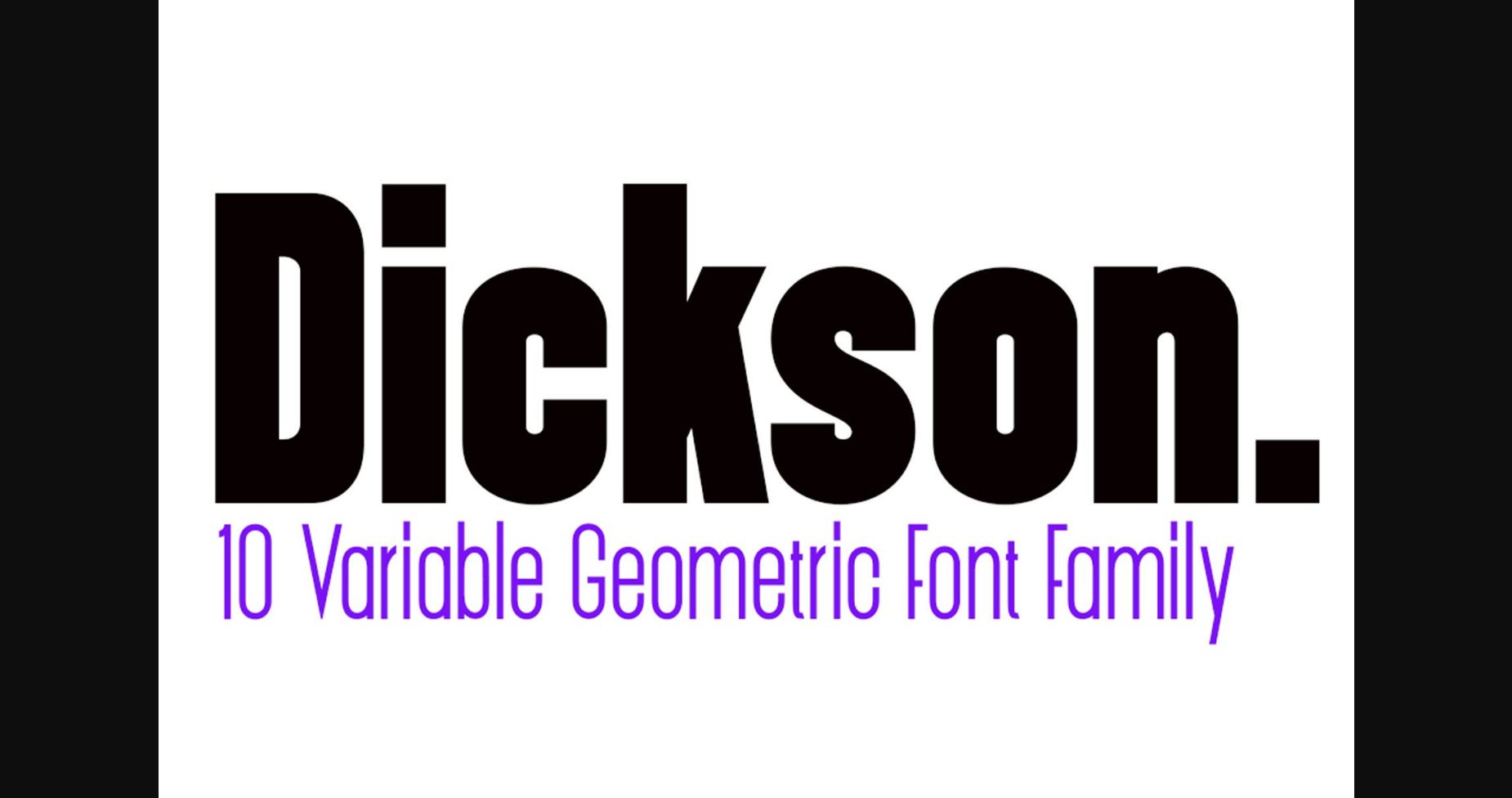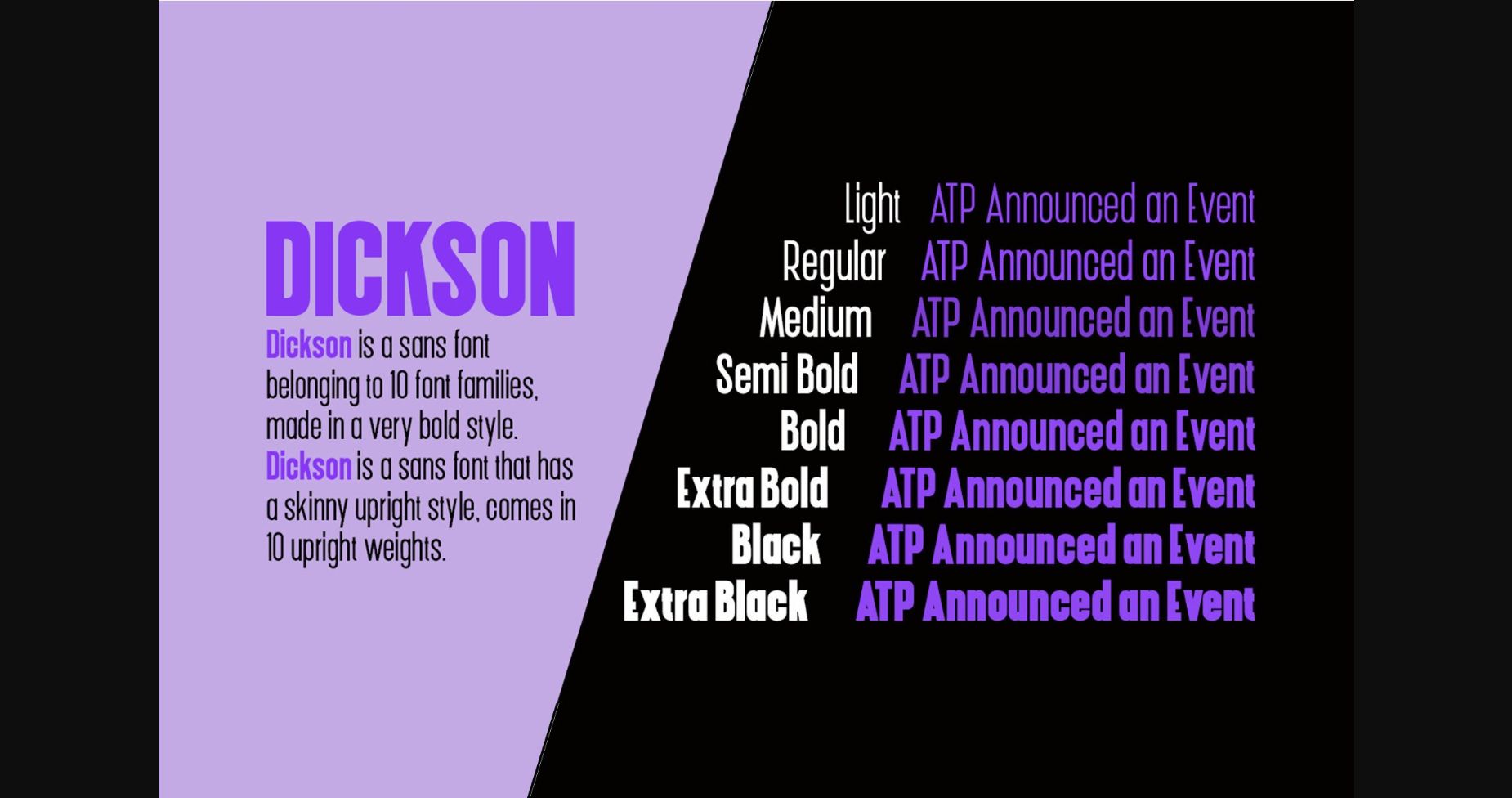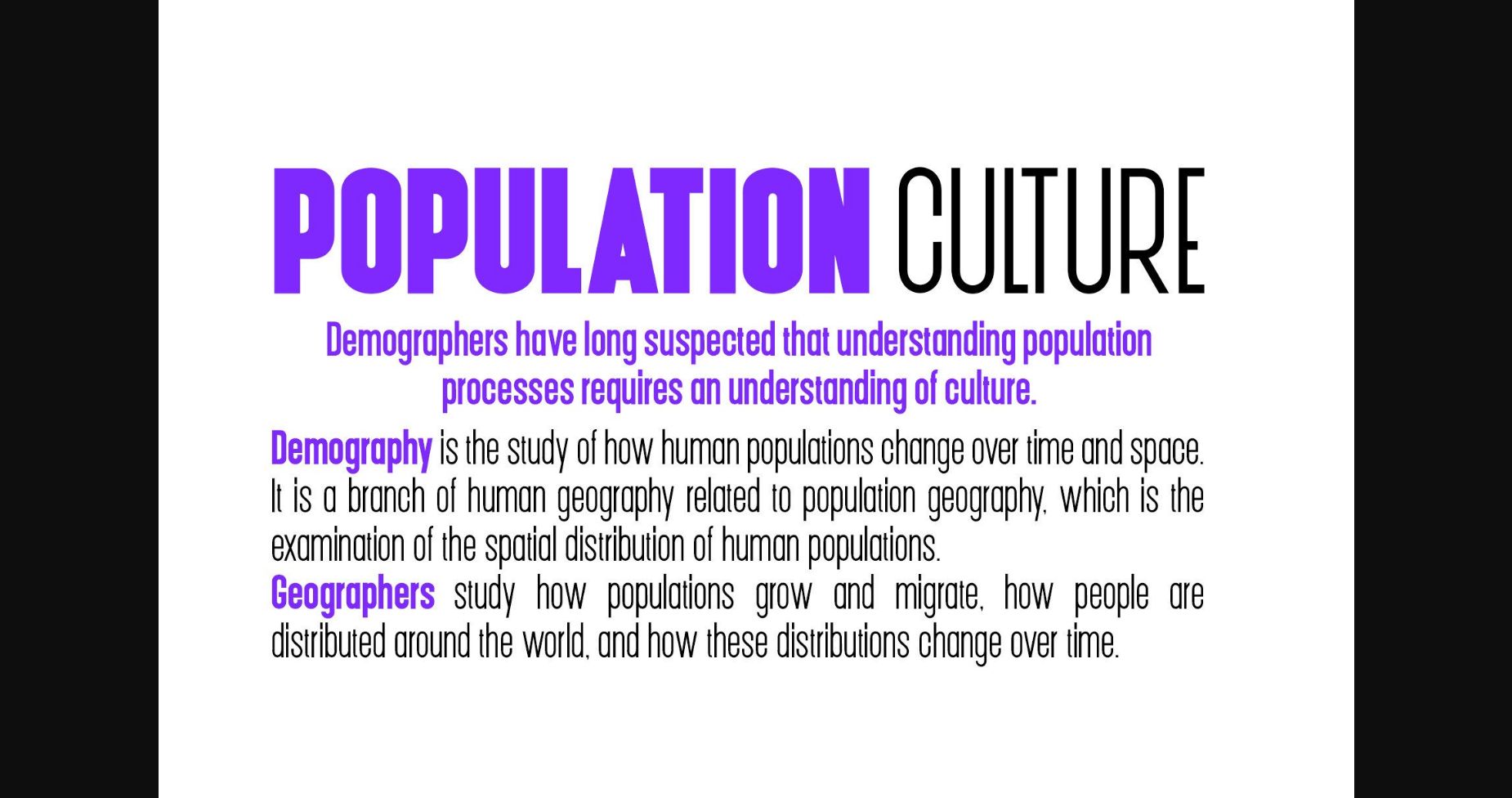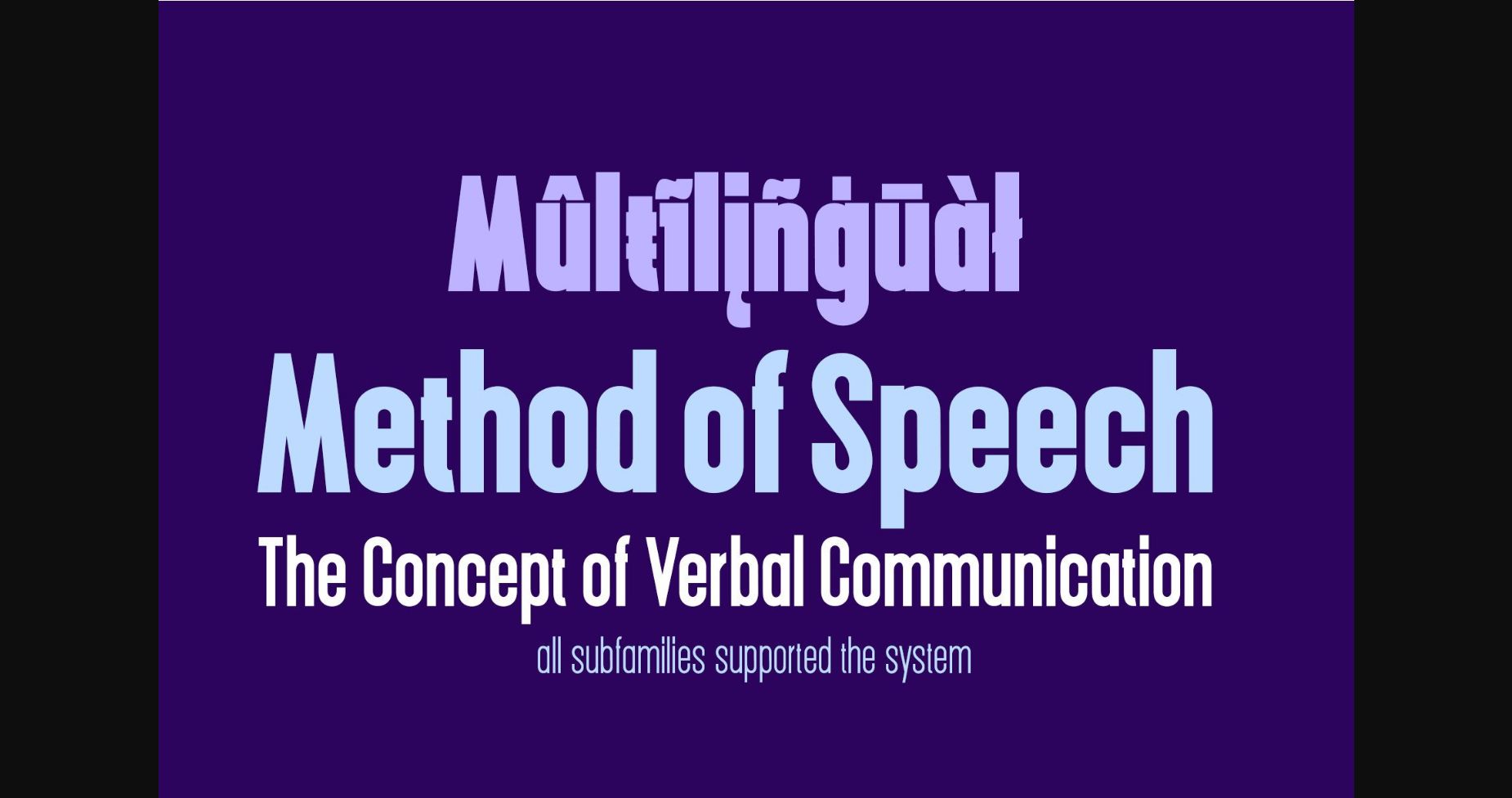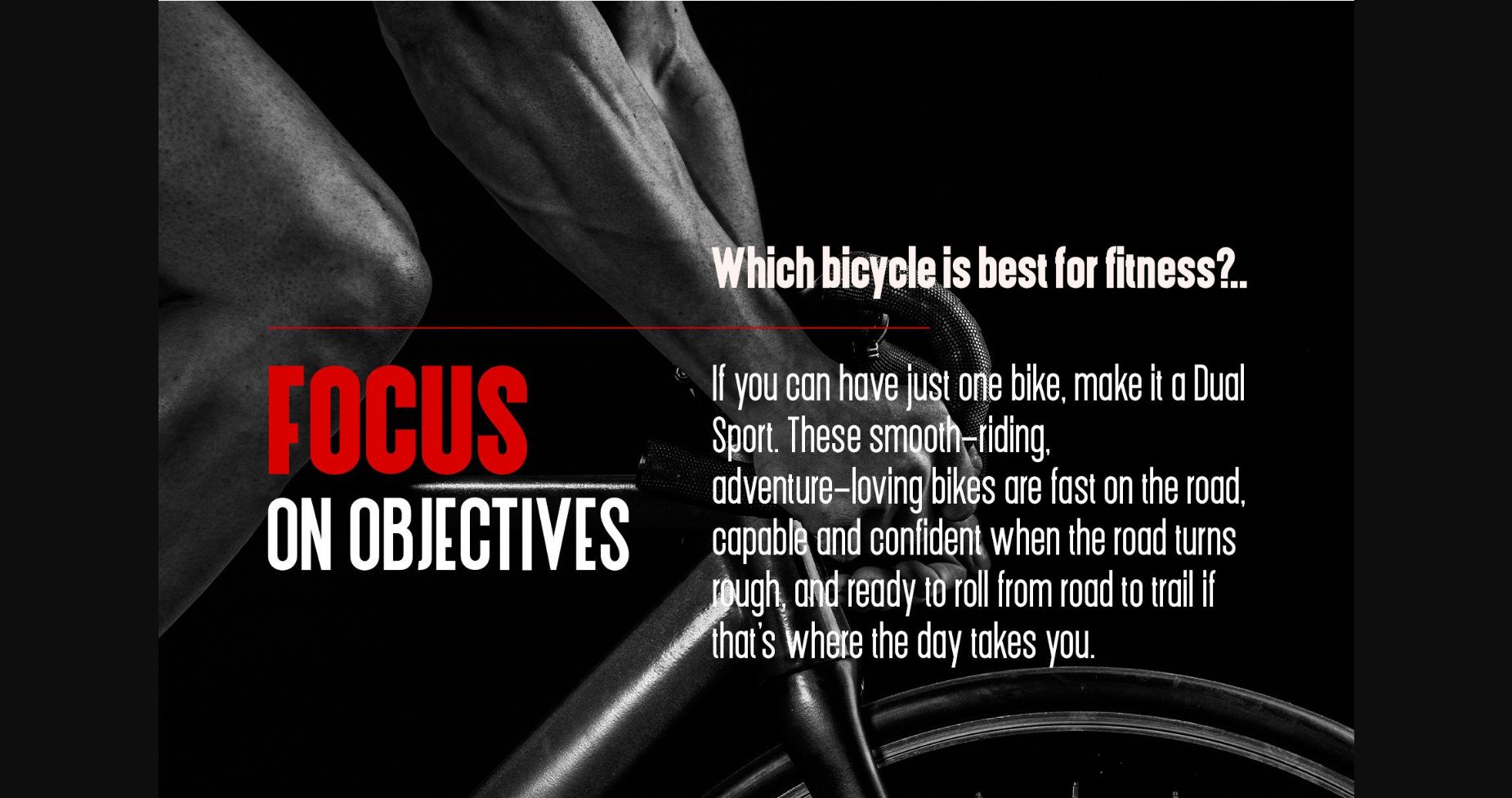
Dickson Font
About Dickson Font
Dickson is a sans font belonging to 10 font families, made in a very bold style. Dickson is a variable font with a slim style, coming in 10 straight weights.
Dickson works well in all brands, logos, magazines, movies. The different weights give you a wide host of applications, while the outlined fonts give a real modern feel to any project.
Multilingual support for multiple languages including: French, German, Spanish, Portuguese, Italian, Dutch, Finnish, Swedish and many more.